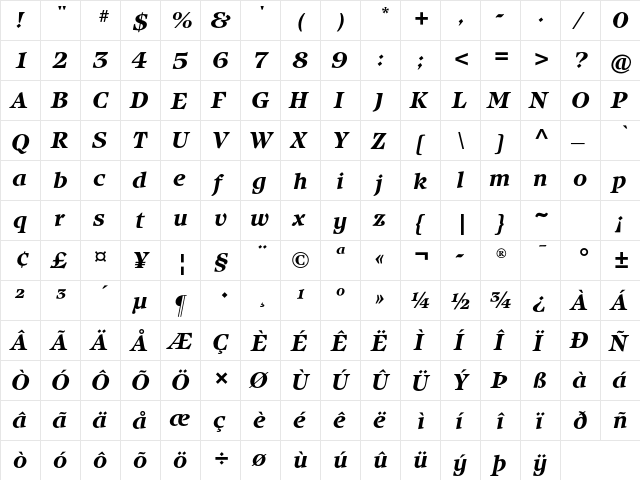
Isbell ITC Std Bold Italic
| Foundry | International Typeface Corporation |
| Designer | Dick Isbell/Jerry Campbell |
Design Context for Isbell ITC Std Typeface
Isbell ITC Std takes a measured approach to typography — its balanced proportions and neutral character make it a reliable workhorse for both digital and print work. Its italic angle brings a sense of urgency and motion to the letterforms. Its bold stroke weight gives it real presence on the page.
Pro Tip: Use Isbell ITC Std for emphasis, pull quotes, and subheadings where its slanted energy can add rhythm to the layout.